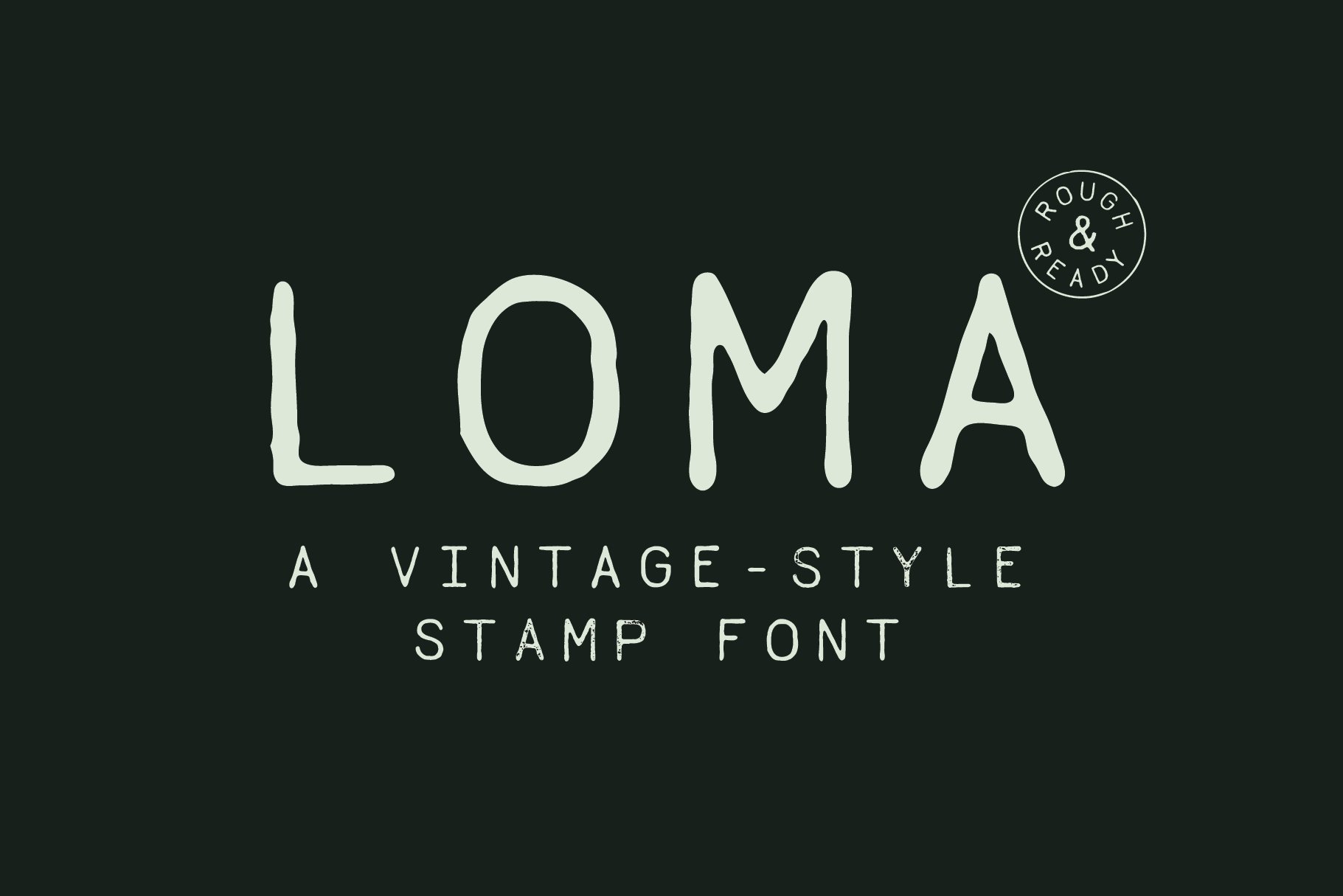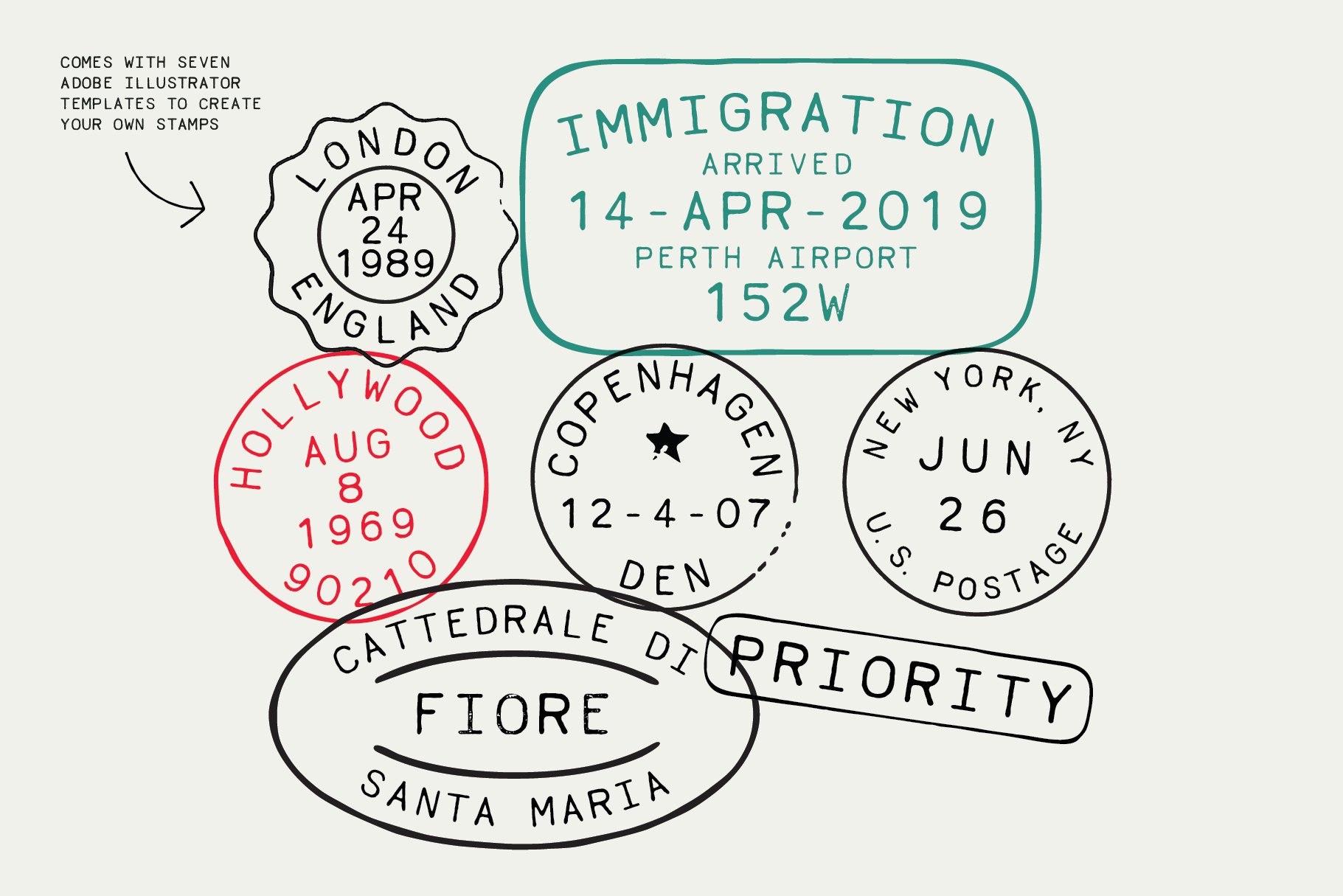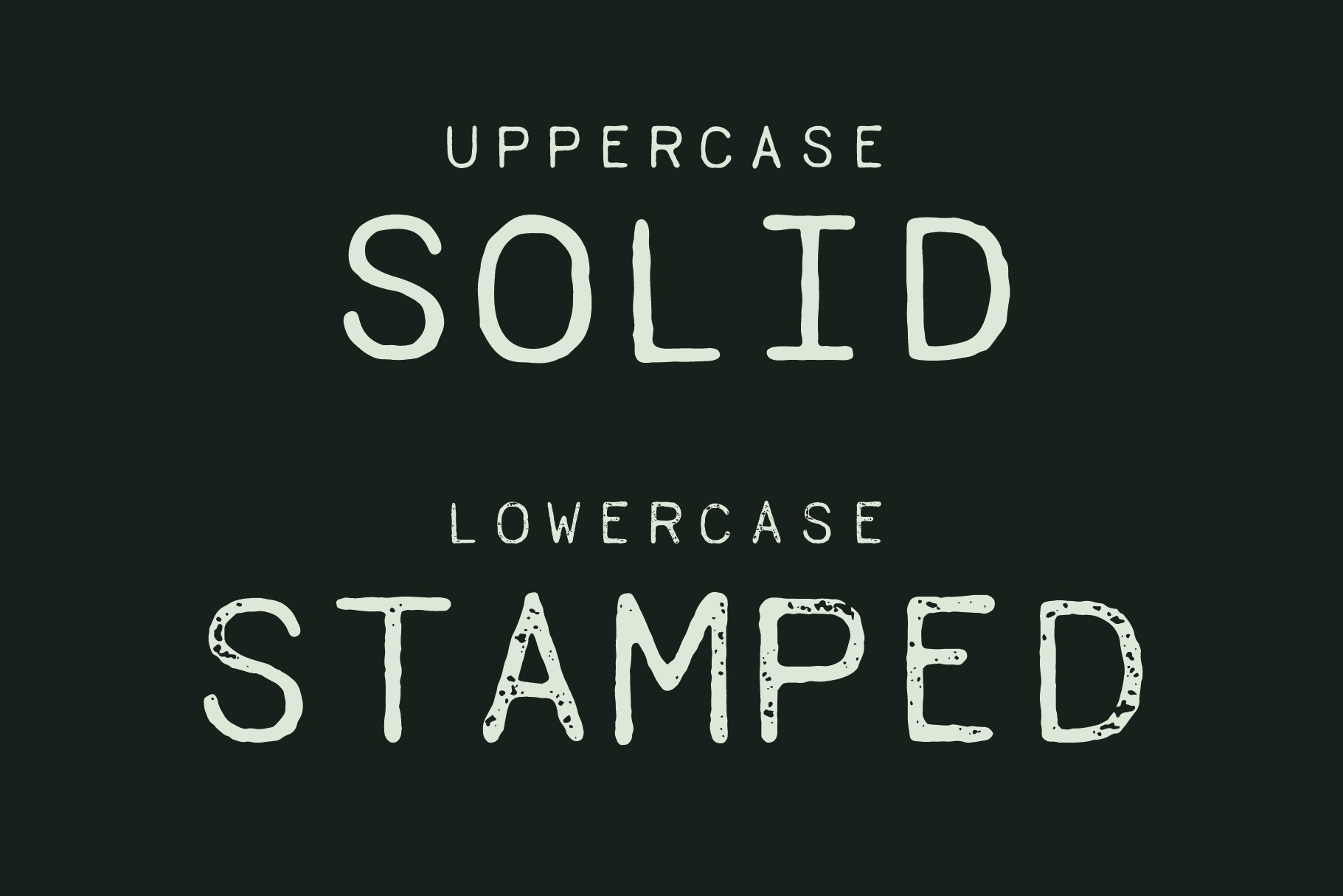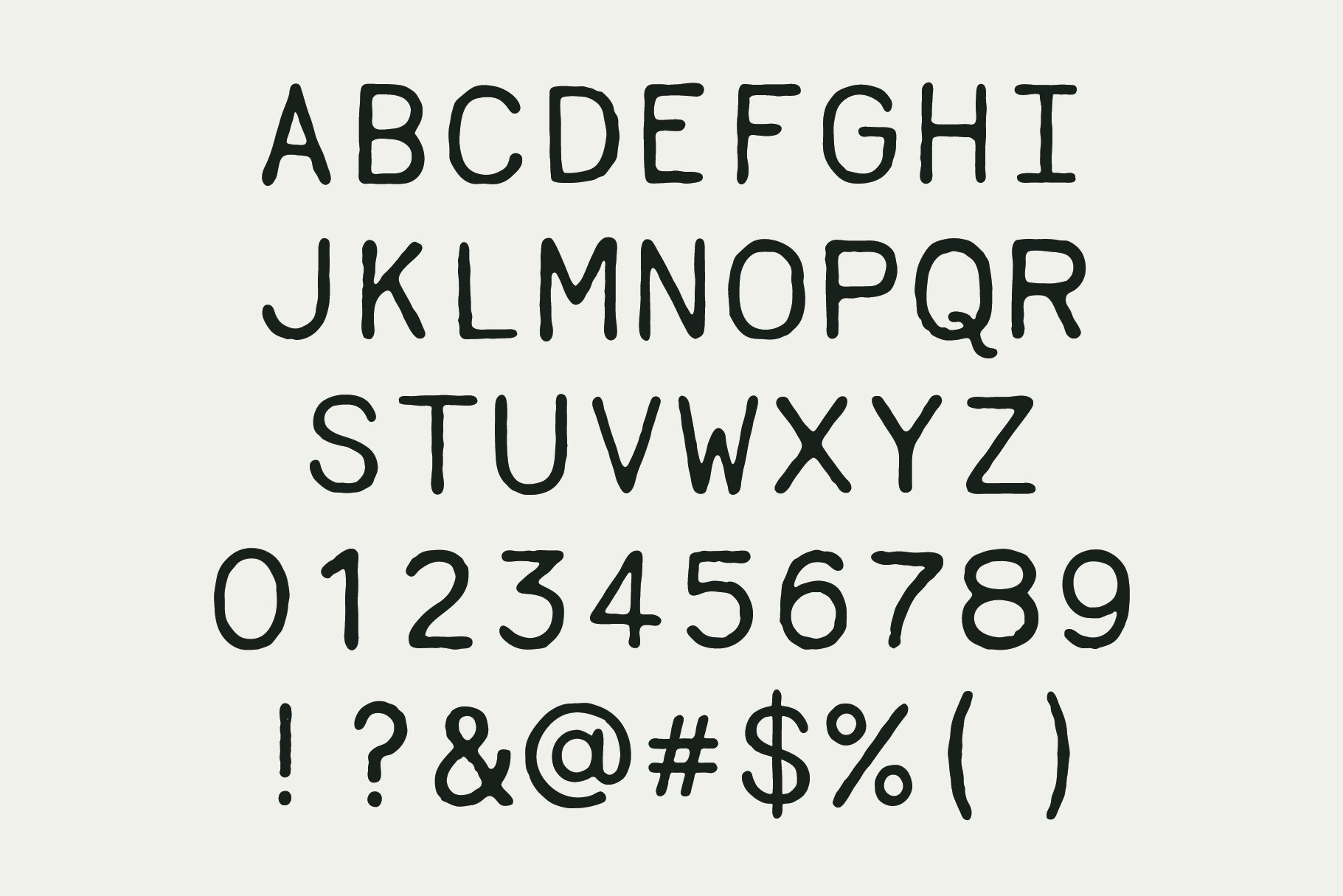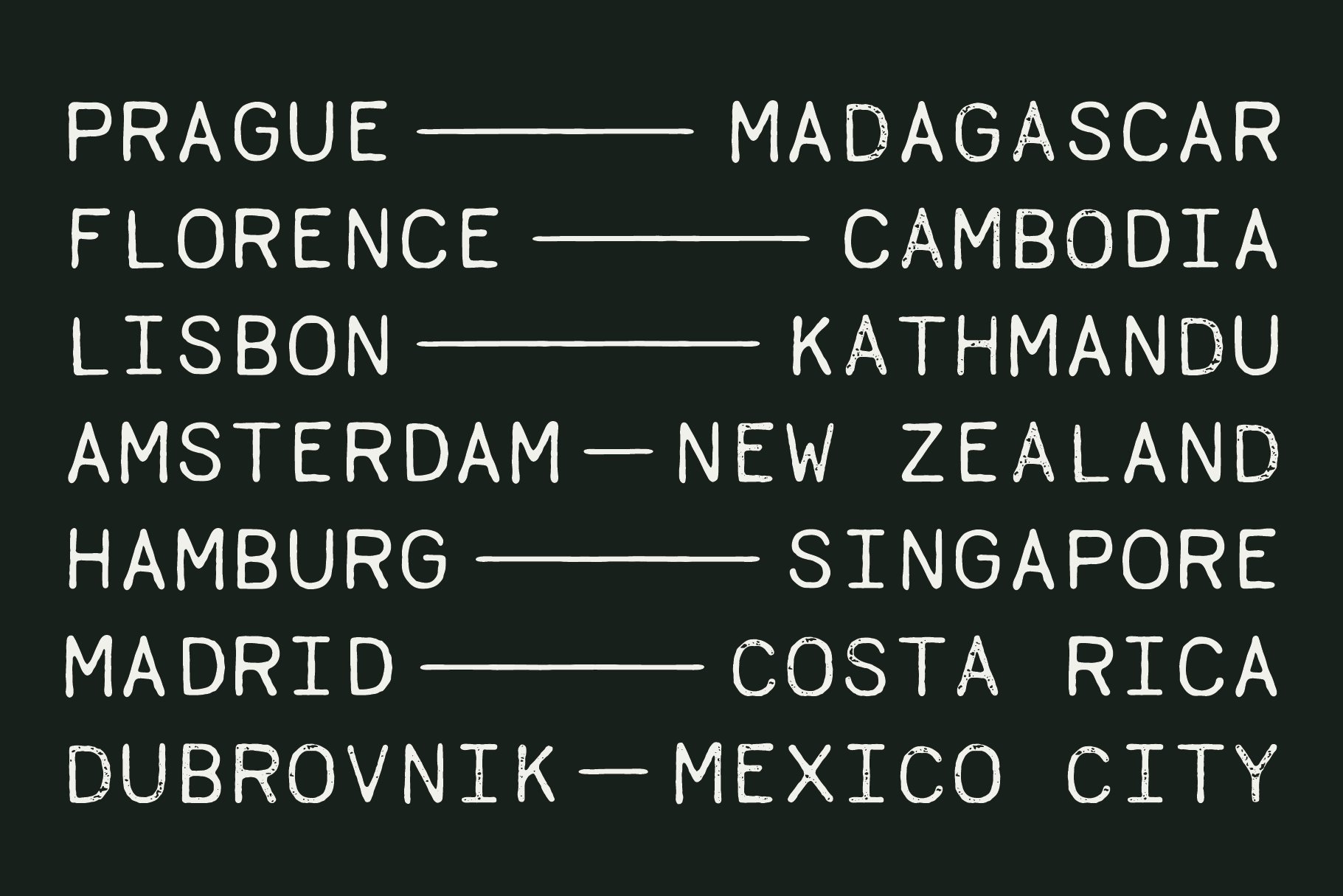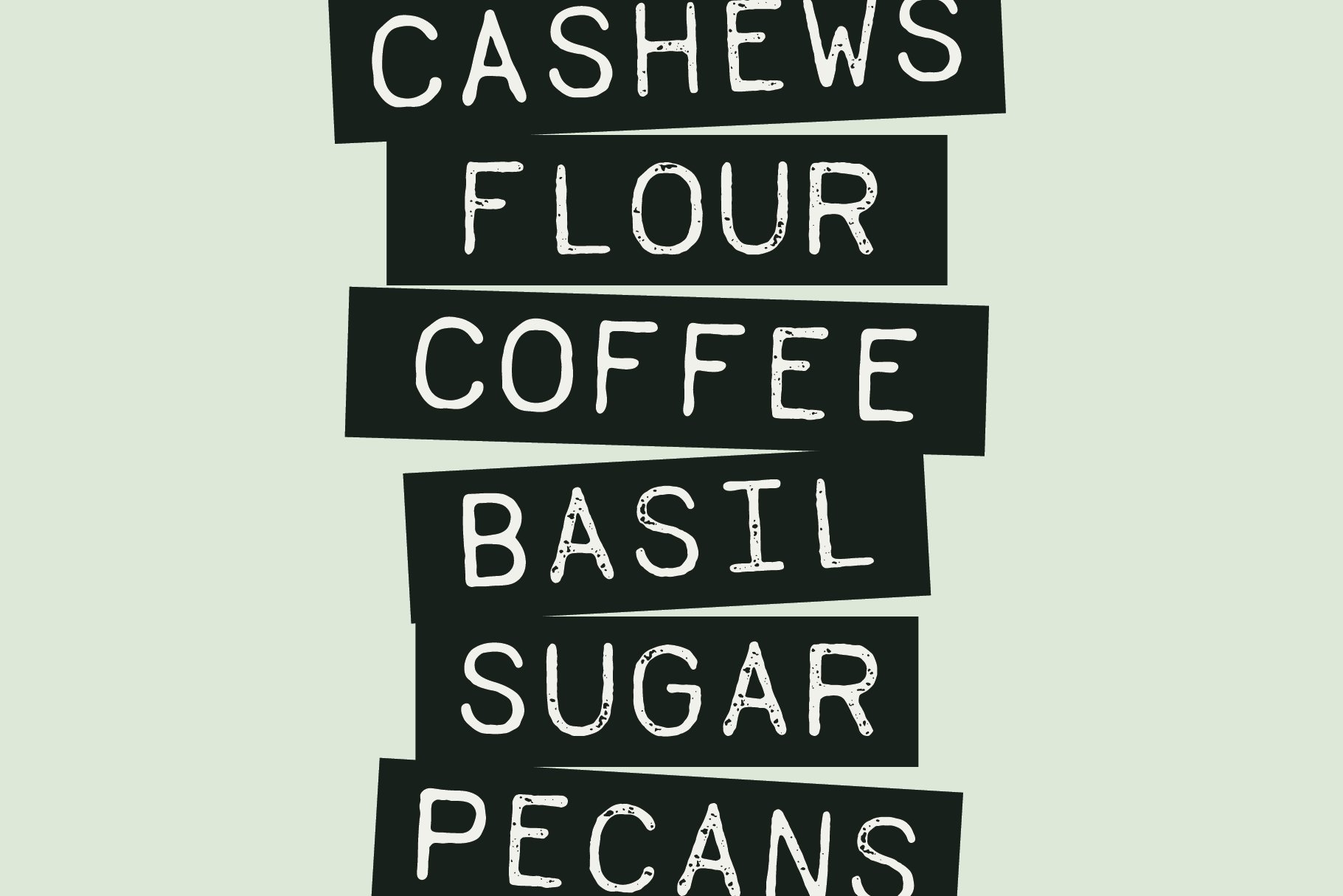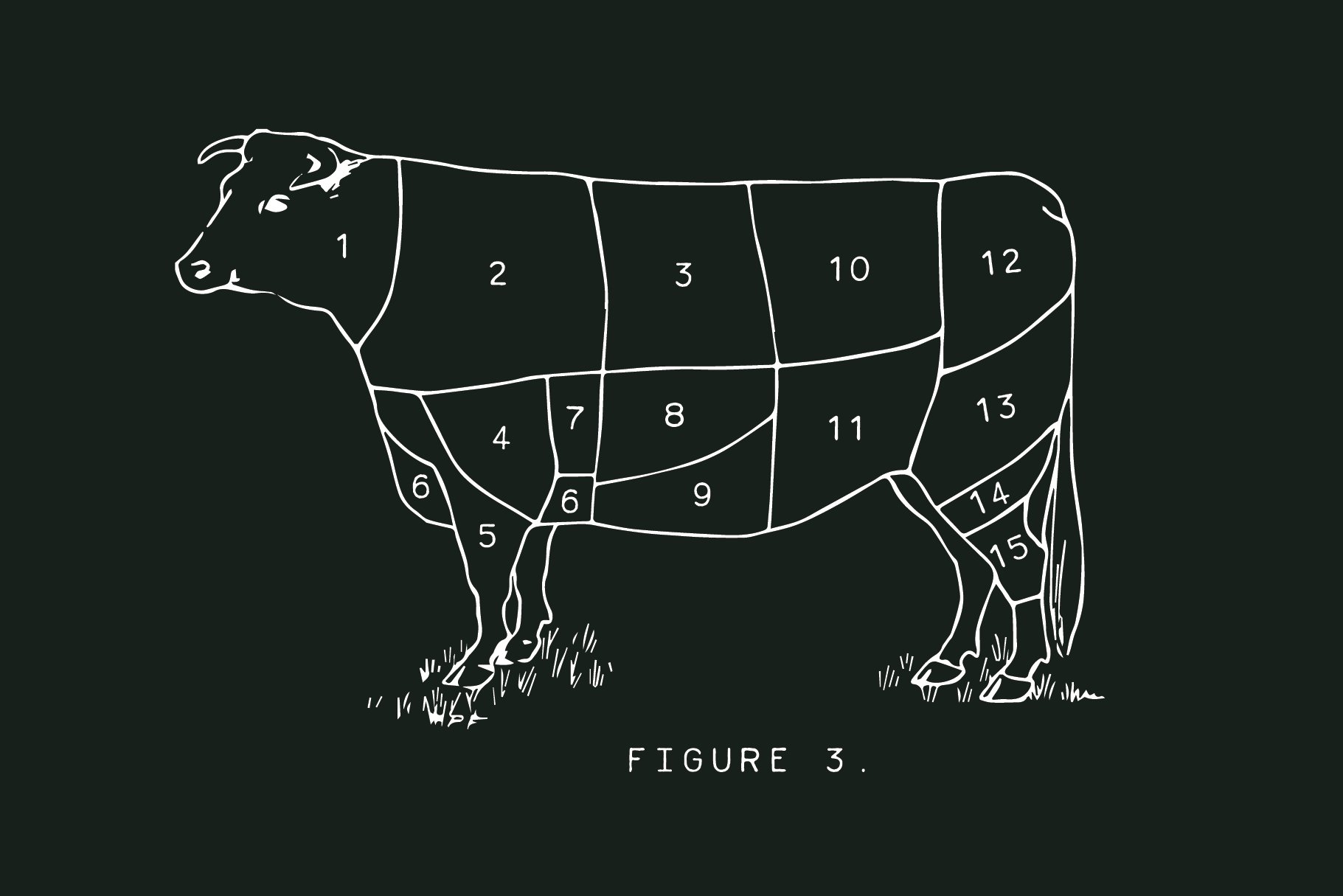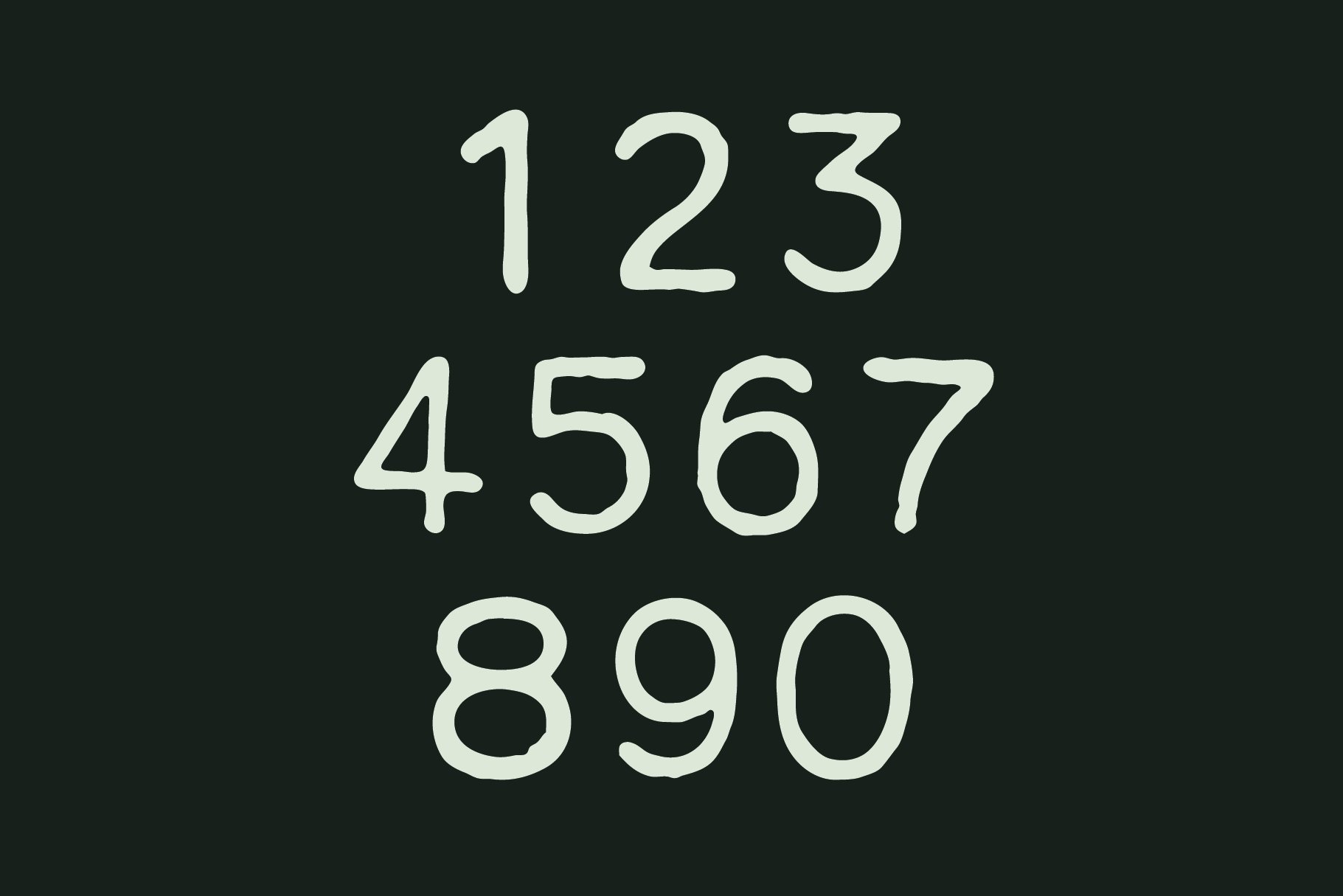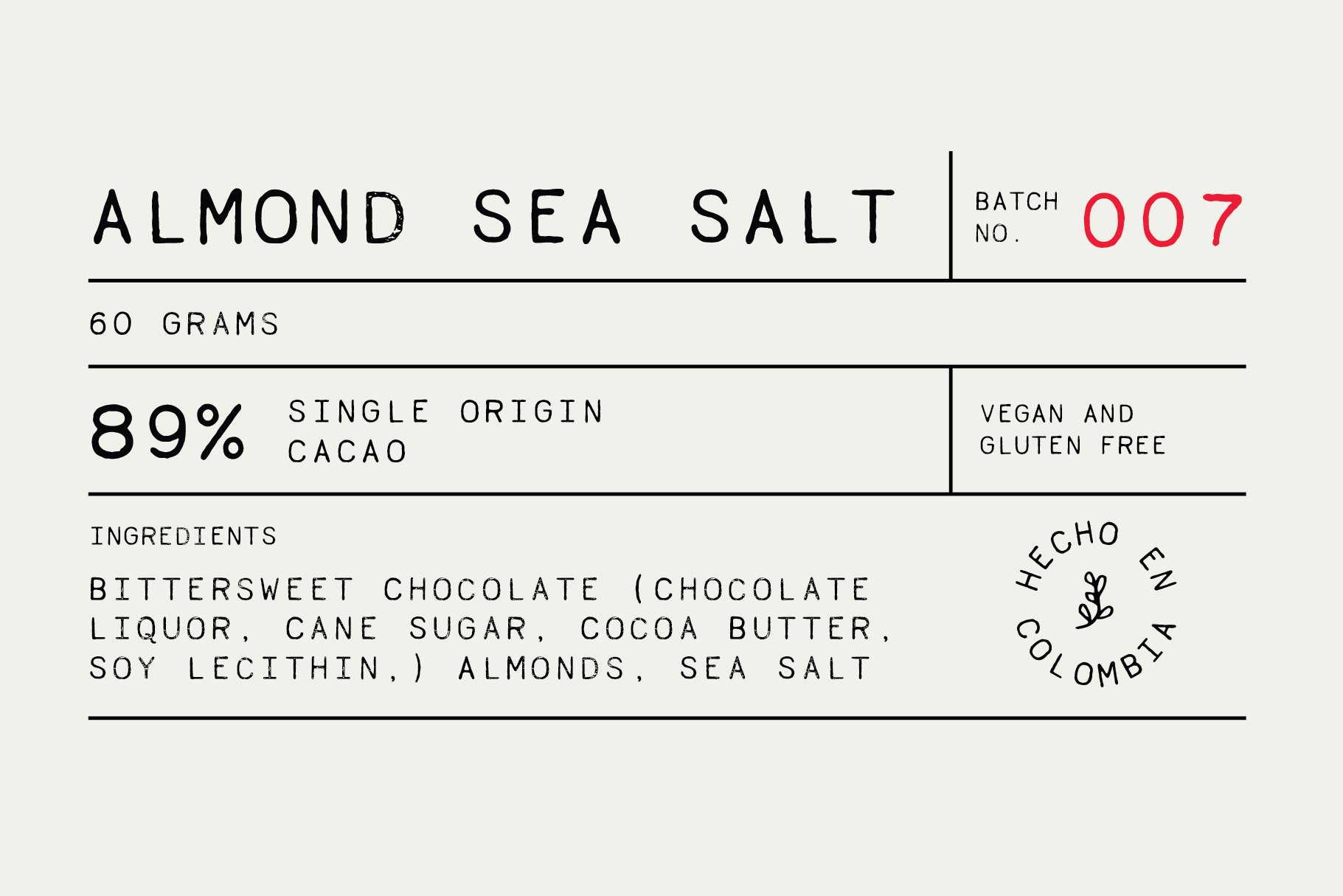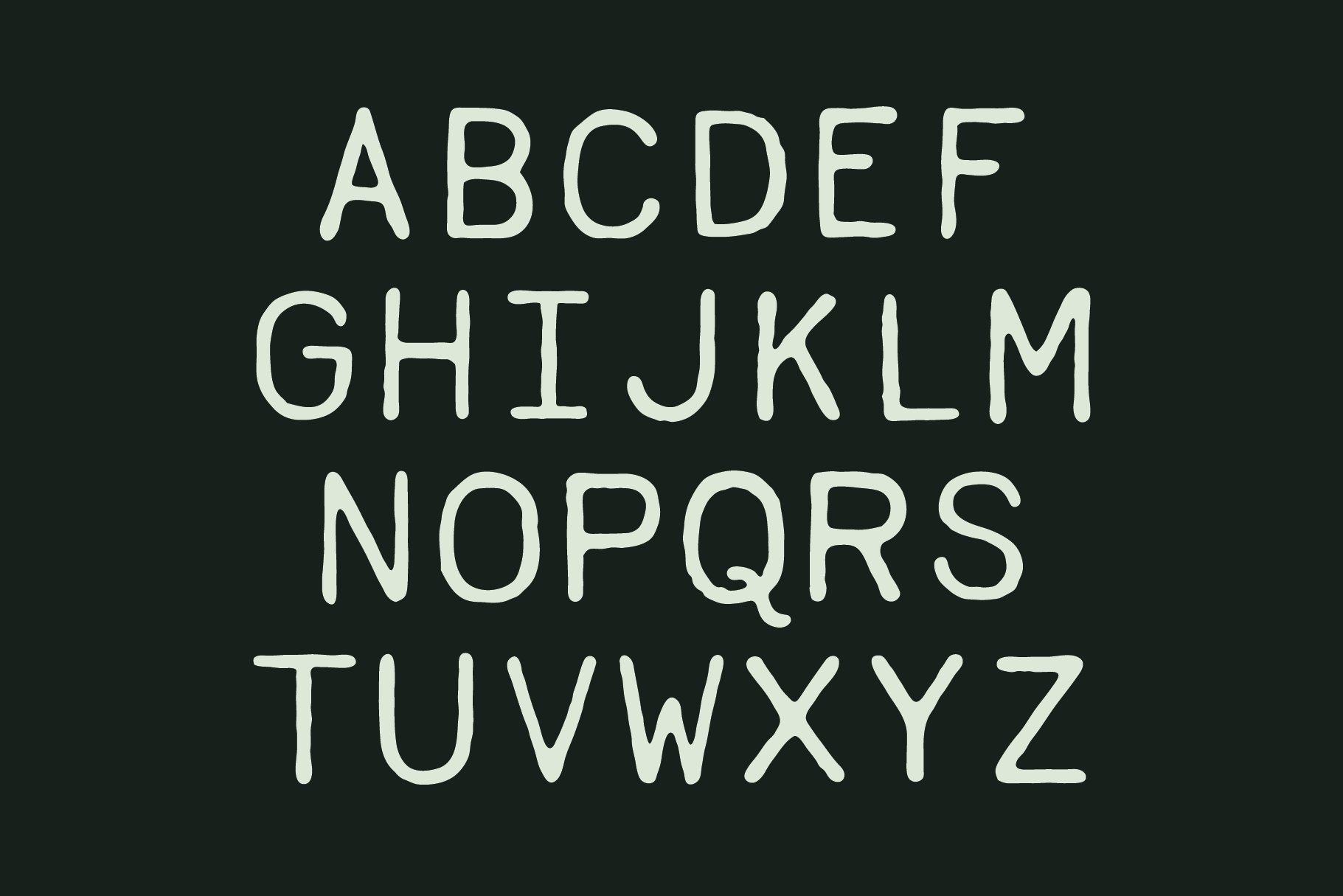
Inspired by vintage rubber stamps on old envelopes and postcards, Loma is an all-caps, monospaced font with solid and textured letters to help you create the perfect hand-pressed effect.
Use uppercase for solid letters and lowercase for textured letters.
It also comes with an Adobe Illustrator file of seven templates with editable text so you can create your own stamps.
• Characters A-Z -Numerals & Punctuation
• Accented Characters (West Europe)